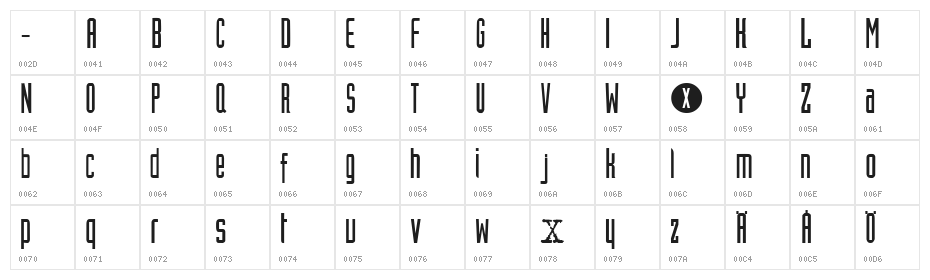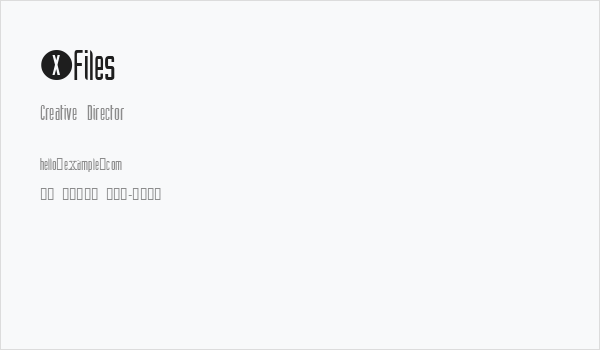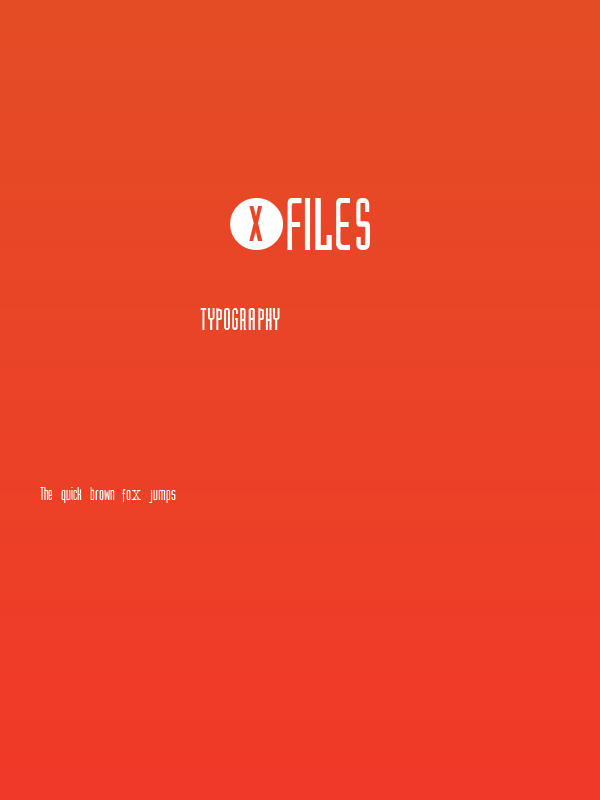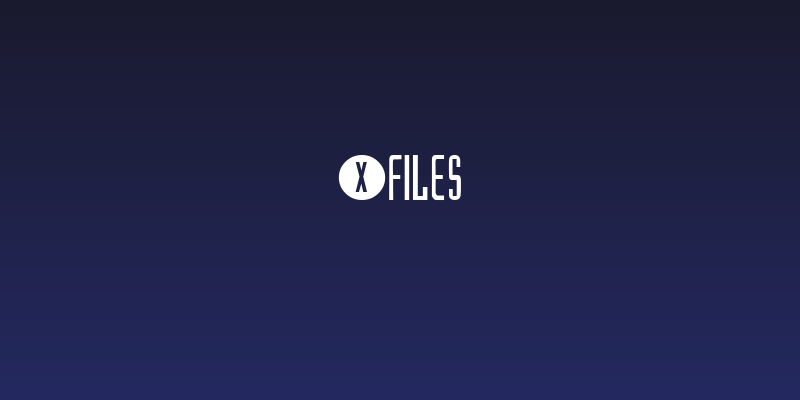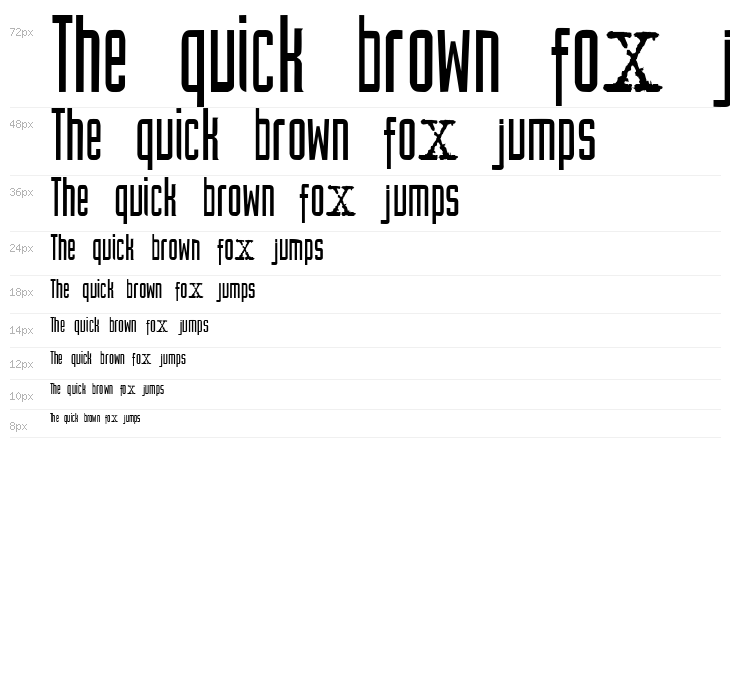
XFiles Font
XFiles Description
This font features a bold, condensed style with a strong presence. The uppercase letters are tall and narrow, creating a striking and impactful look. The lowercase letters maintain the same condensed form, ensuring consistency throughout the typeface. The unique design of certain characters, such as the 'X', adds a distinctive flair, making it stand out. The font's geometric shapes and clean lines give it a modern and edgy appearance, suitable for attention-grabbing headlines or titles. The absence of numbers and special characters in the image suggests a focus on alphabetic characters, emphasizing its use in text-based designs.
Proposed ProjectsIdeal for use in posters, logos, branding materials, and any project requiring a bold statement.